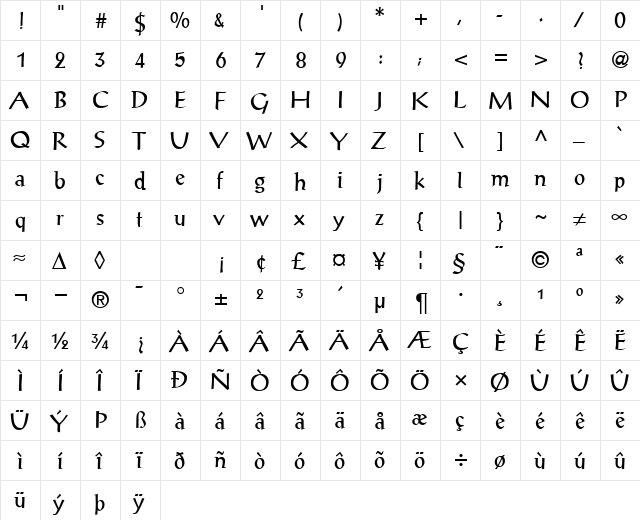
PortalAntiqua Regular
Design Context for PortalAntiqua Typeface
PortalAntiqua offers clean, dependable letterforms without strong stylistic allegiance, making it a practical choice for designers who need flexibility.
Pro Tip: Use PortalAntiqua in both headline and body roles to test its range before committing to a single application.